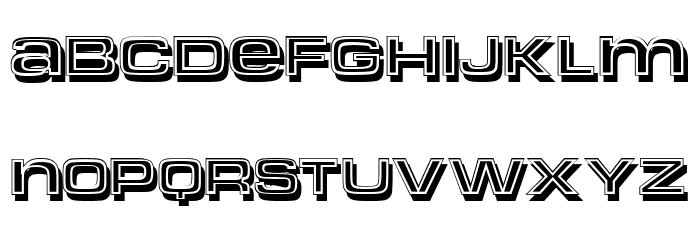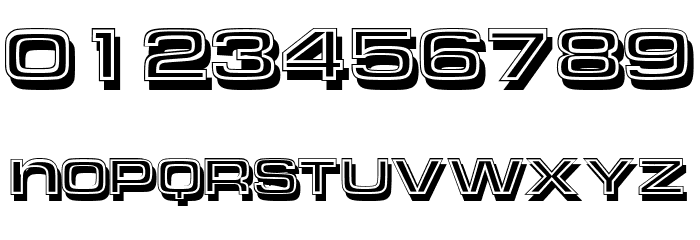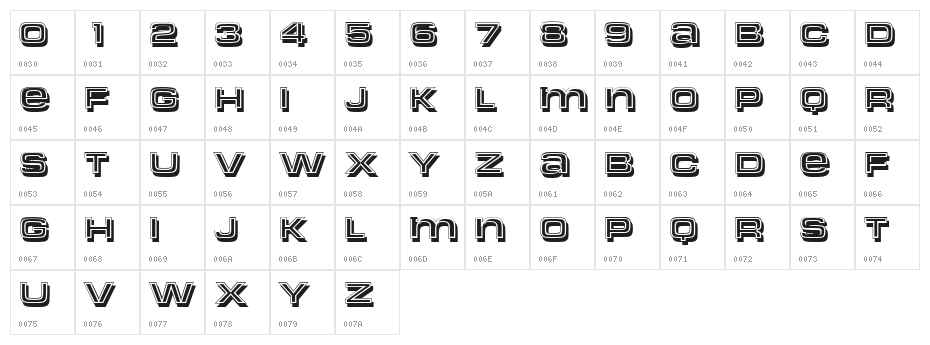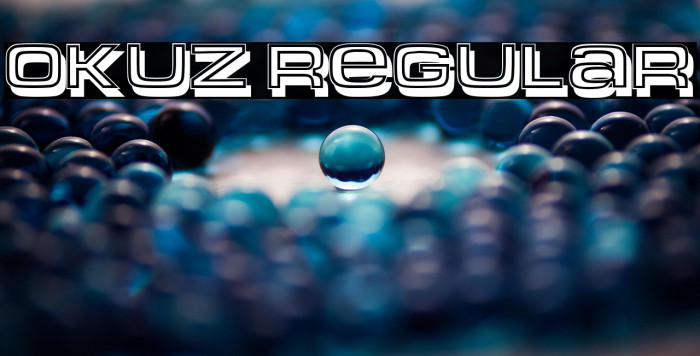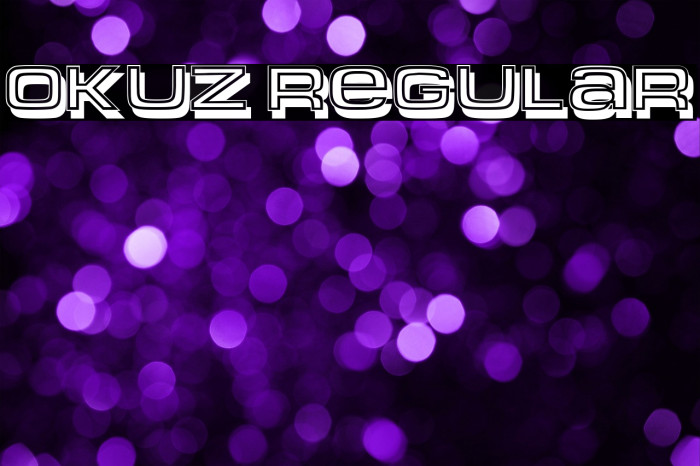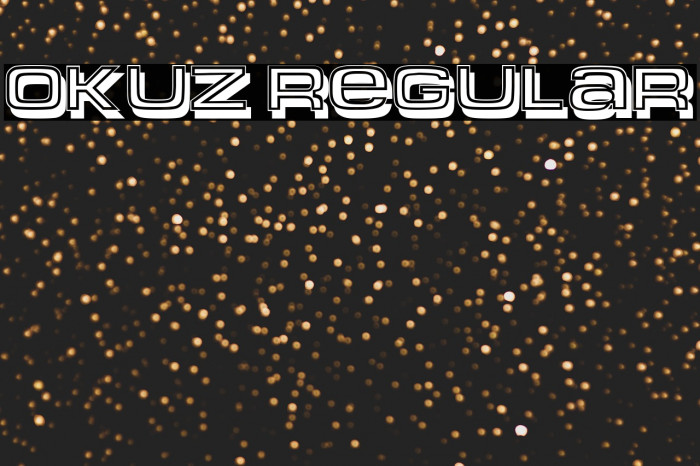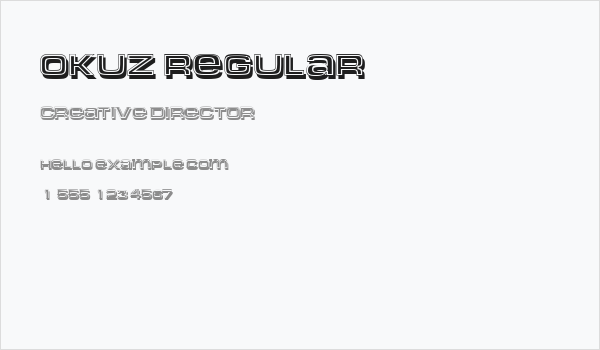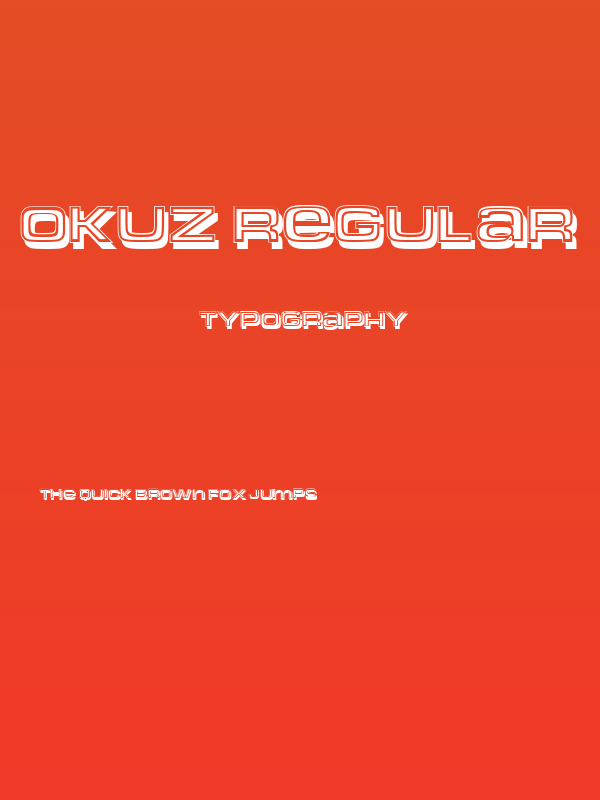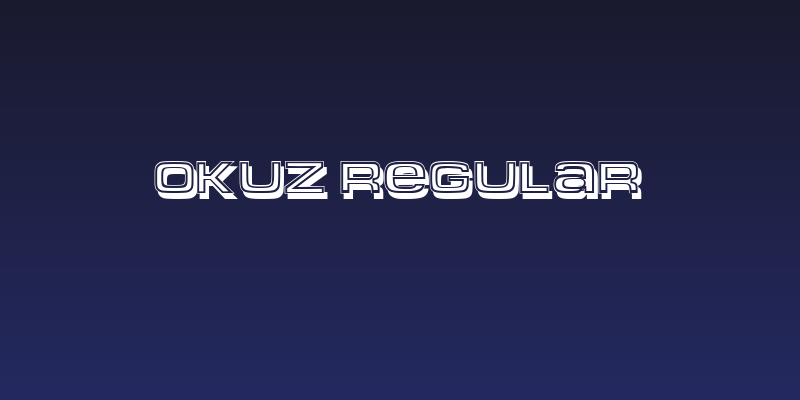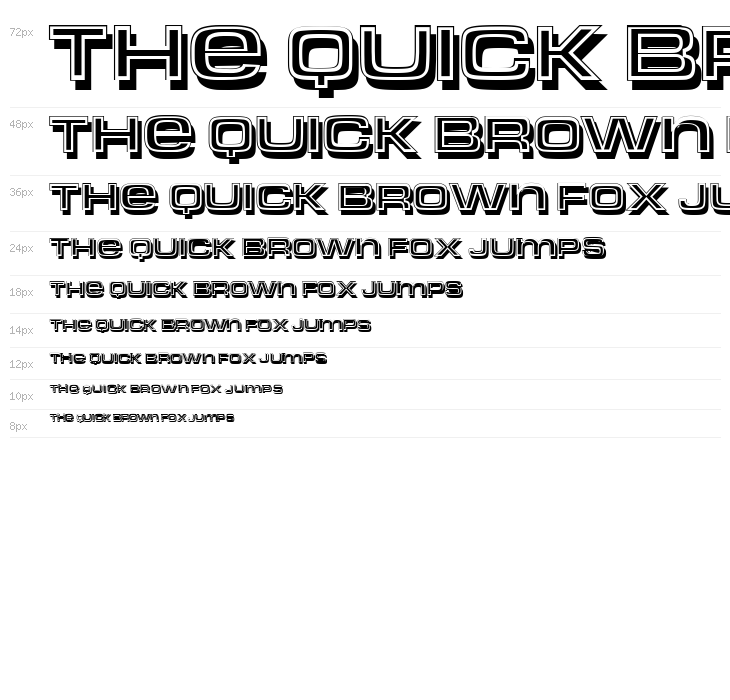
Okuz Regular Font
This font features a bold, modern design with a distinct three-dimensional effect. Each character is outlined with a thick black border, creating a shadow-like appearance that adds depth and visual interest. The letters are uppercase and lowercase, with a consistent width and height, giving a uniform look across the alphabet. The numbers and special characters follow the same design principles, ensuring cohesion throughout. This font's unique style makes it stand out, ideal for eye-catching designs.
A bold, modern font with a 3D effect and thick outlines.
- Font: Okuz Regular
- Proposed Projects: Ideal for posters, headlines, logos, and any design requiring a striking, modern aesthetic.